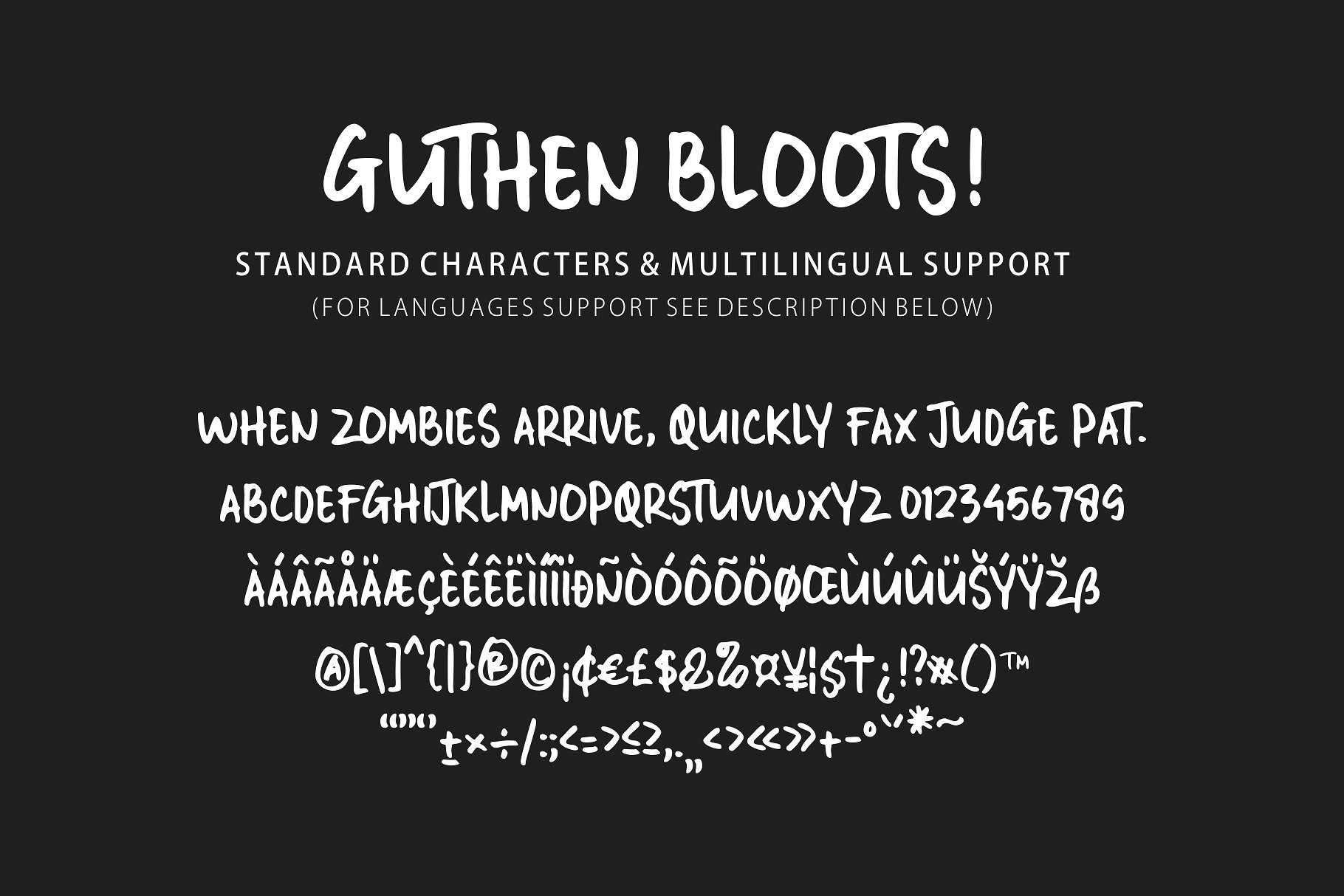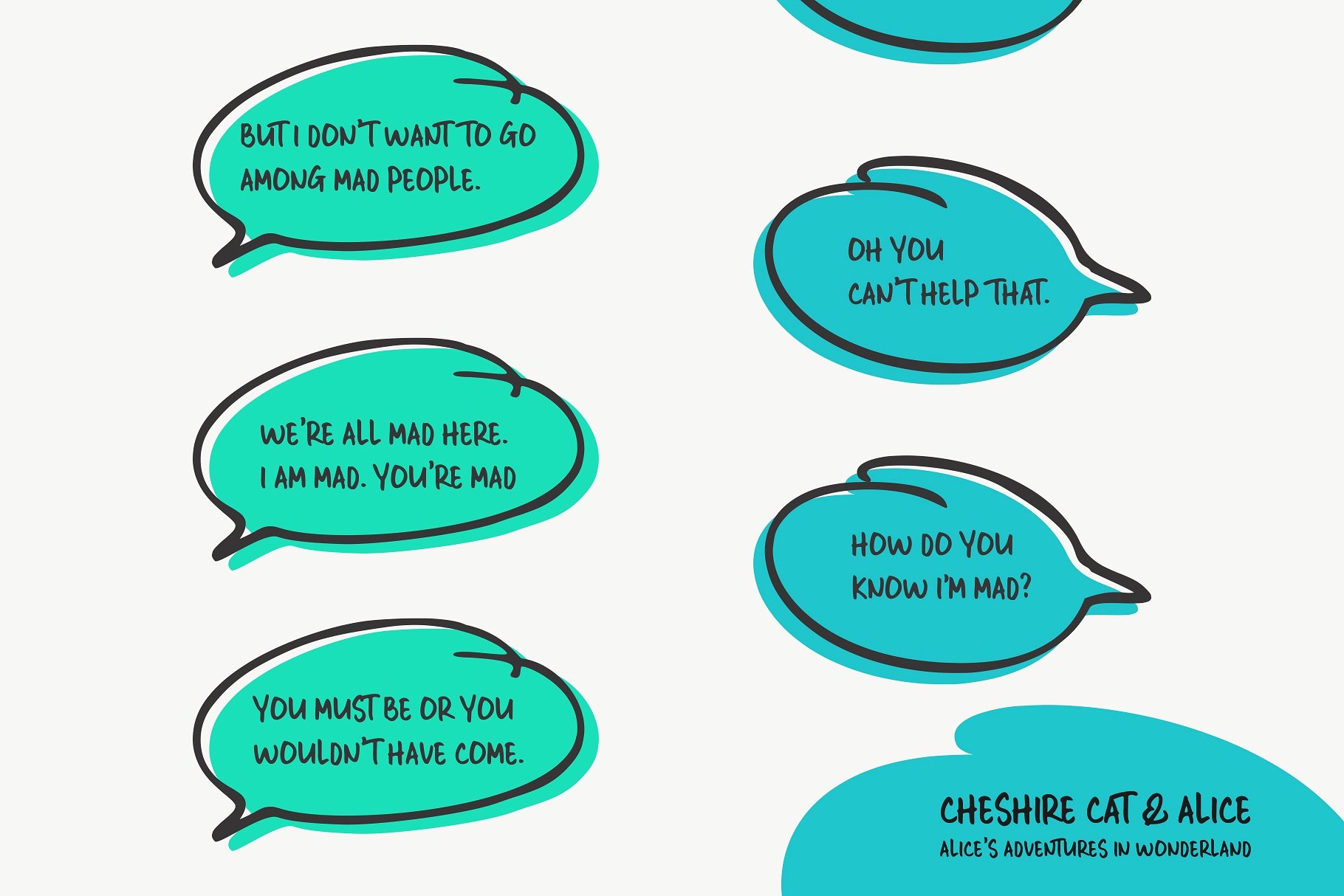
Guthen Bloots Allcaps Font
Hi friends! If you are looking for a font display, this will be a perfect choice. Introducing Guthen Bloots Font. Guthen Bloots designed and shared by Azetype. This font made with perfect combining of each characters. You can be used for all your project needs. Each glyph has its own uniqueness and when meeting with others will provide a dynamic and pleasing proximity. This font can be used at any time and any project. You can see in the presentation picture above, it looks perfect and elegant on design projects. You must prove it!
So, GUTHEN BLOOTS ALLCAPS can’t wait to give its touch to all your design projects such as quotes, poster design, personal branding, promotional materials, product design (e.g. T-shirt), etc.